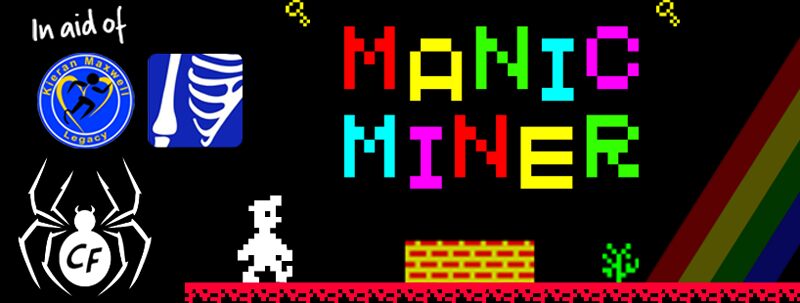
MANIC MINER
© KiddieFonts. All rights reserved. I always wanted to create this typeface from the enjoyment of childhood. After watching a local boy diagnozed with Ewing's Sacoma stay positive and raise money for bone cancer research I decided that is was time to release this MANIC MINER fan-font based on the the hugely popular game of the same name from 1983. The uppercase letters are widely spaced and lower case letters are scaled down and shifted with the vowels attached to the base line and the constanants floating just like in the game!